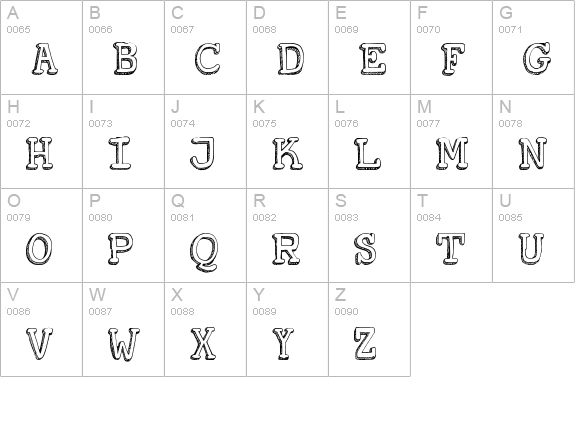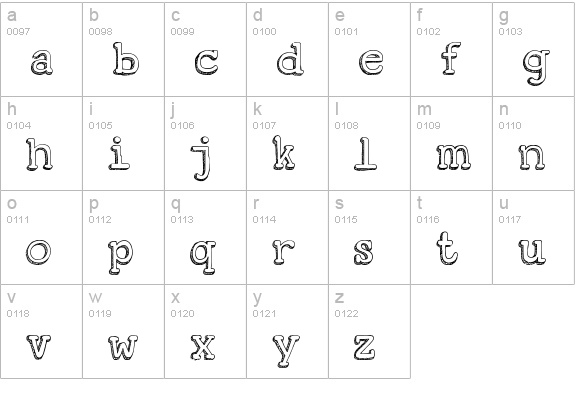
DK Koerier Font Details
DK Koerier is a modern and versatile font that combines elegance with a touch of playfulness. Its sleek and clean design makes it perfect for a wide range of projects, from branding and advertising to packaging and web design. With its rounded edges and smooth curves, DK Koerier exudes a sense of friendliness and approachability. It is a font that invites readers to engage with the content, creating a warm and welcoming atmosphere. One of the standout features of DK Koerier is that it is available for free download at FontsMarket.com. This means that designers and creatives from all walks of life can access this beautiful font without any cost. Whether you are a professional designer or a student working on a school project, DK Koerier is freely available to enhance your work. The versatility of DK Koerier is also worth noting. It is a font that adapts effortlessly to different styles and themes, making it suitable for a variety of design projects. Whether you are aiming for a modern and sleek look or a more whimsical and playful vibe, DK Koerier can deliver the desired effect. Furthermore, DK Koerier is designed with legibility in mind. Its clean and well-defined letterforms ensure that your message is conveyed clearly and effectively, even at small sizes or on screens. This makes it an ideal choice for both print and digital applications. In conclusion, DK Koerier is a versatile and elegant font that is freely available to download at FontsMarket.com. Its clean and friendly design, combined with its adaptability and legibility, make it a must-have for designers and creatives looking to elevate their projects to the next level.